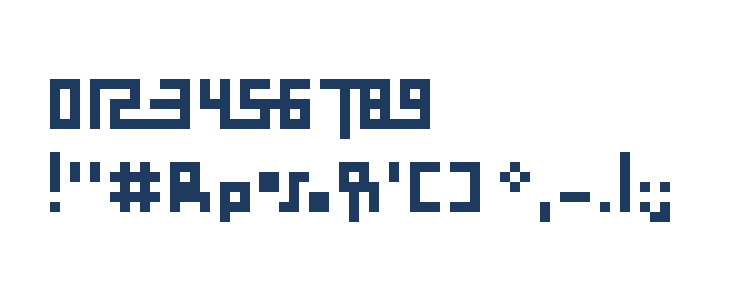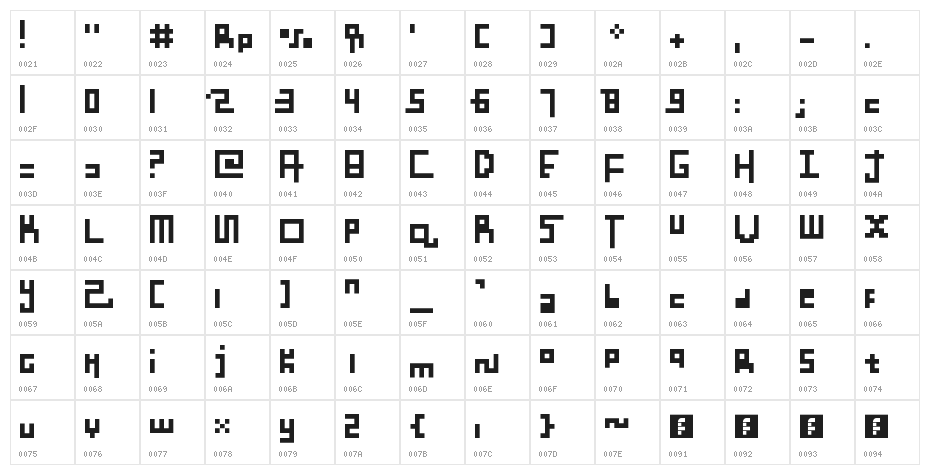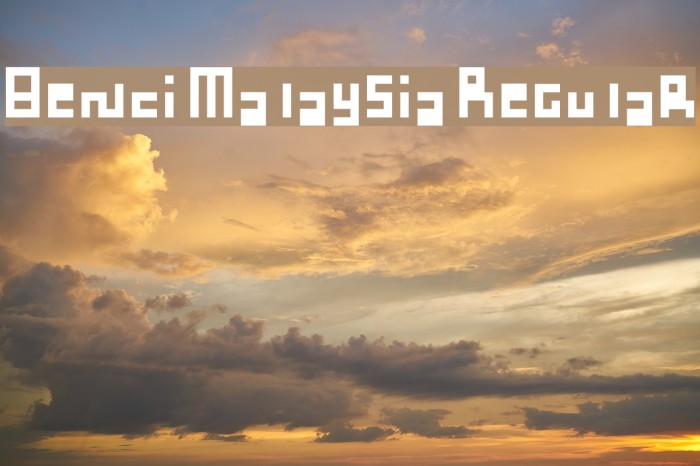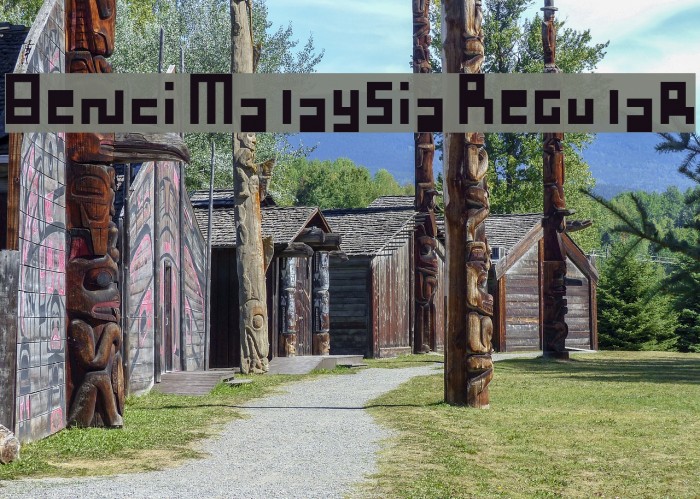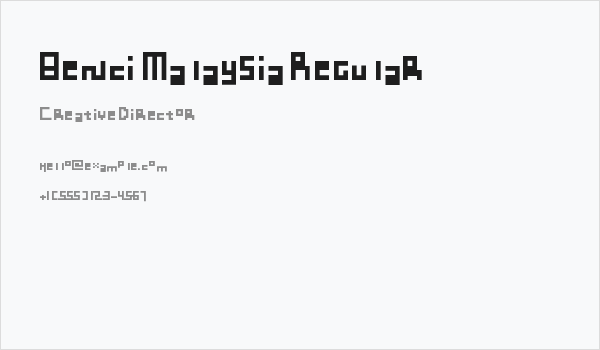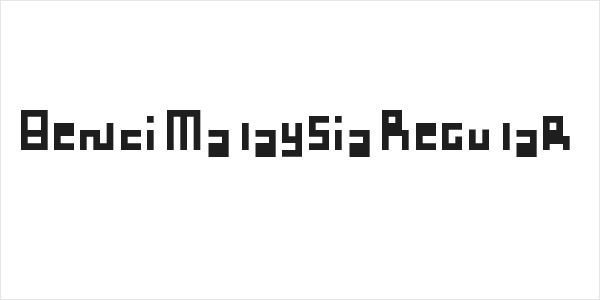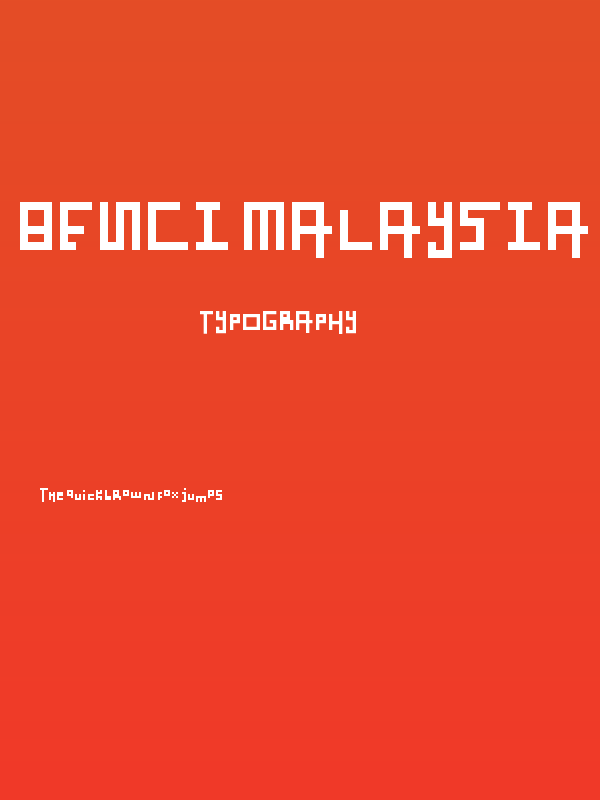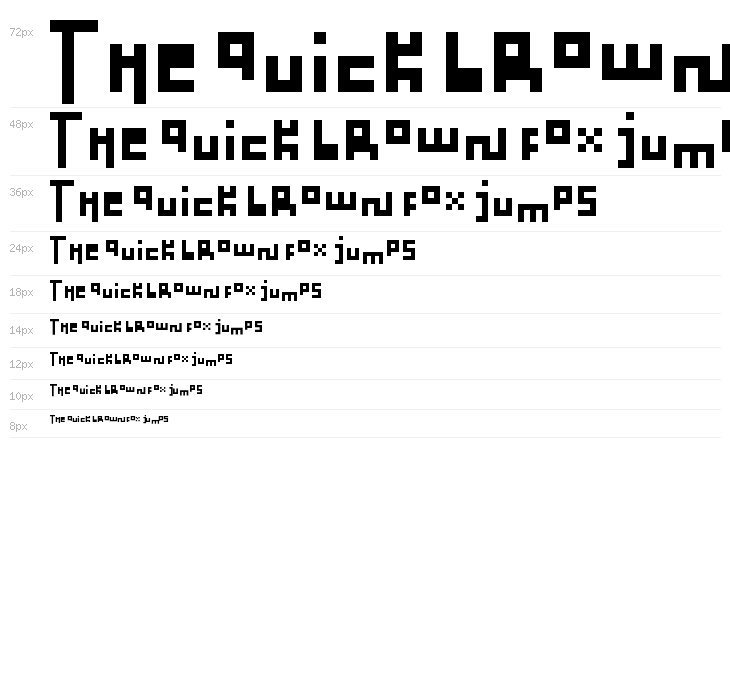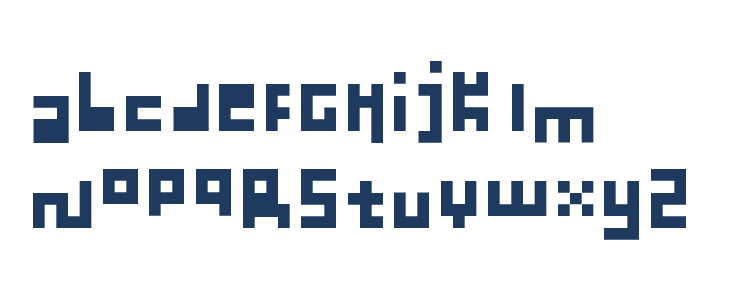
Benci Malaysia Regular Font
Benci Malaysia Regular Description
This font features a bold, geometric design with a distinctly digital and pixelated aesthetic. Each character is constructed with sharp, angular lines and uniform stroke widths, creating a cohesive and modern appearance. The uppercase and lowercase letters maintain a consistent height, contributing to a monospaced feel. The numbers and special characters follow the same design principles, ensuring a seamless integration across all text elements. The overall style is reminiscent of early digital displays or retro video games, making it ideal for projects that require a tech-savvy or nostalgic touch.
| Overall Style | Modern, Retro |
| Use Case | Headlines, Logos, Digital Displays |
| Proposed Projects | Ideal for video game design, tech-themed branding, digital art projects, and retro-inspired graphics. |